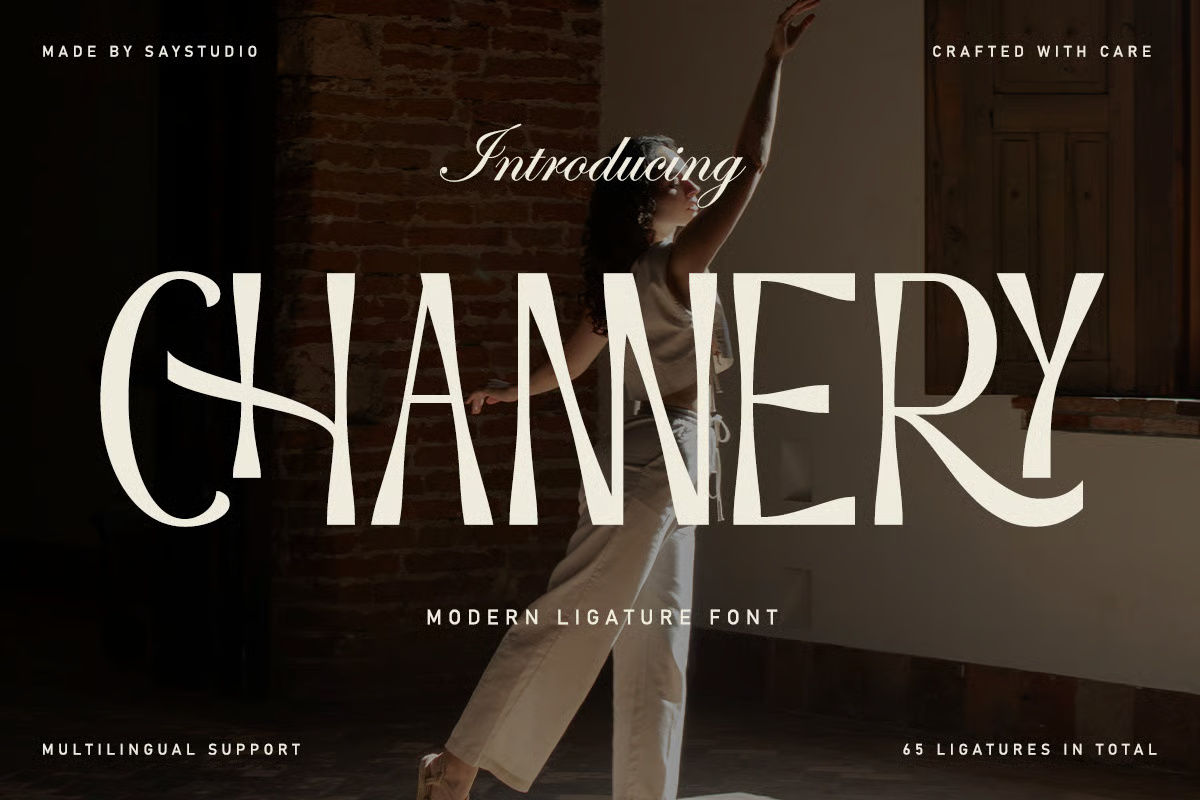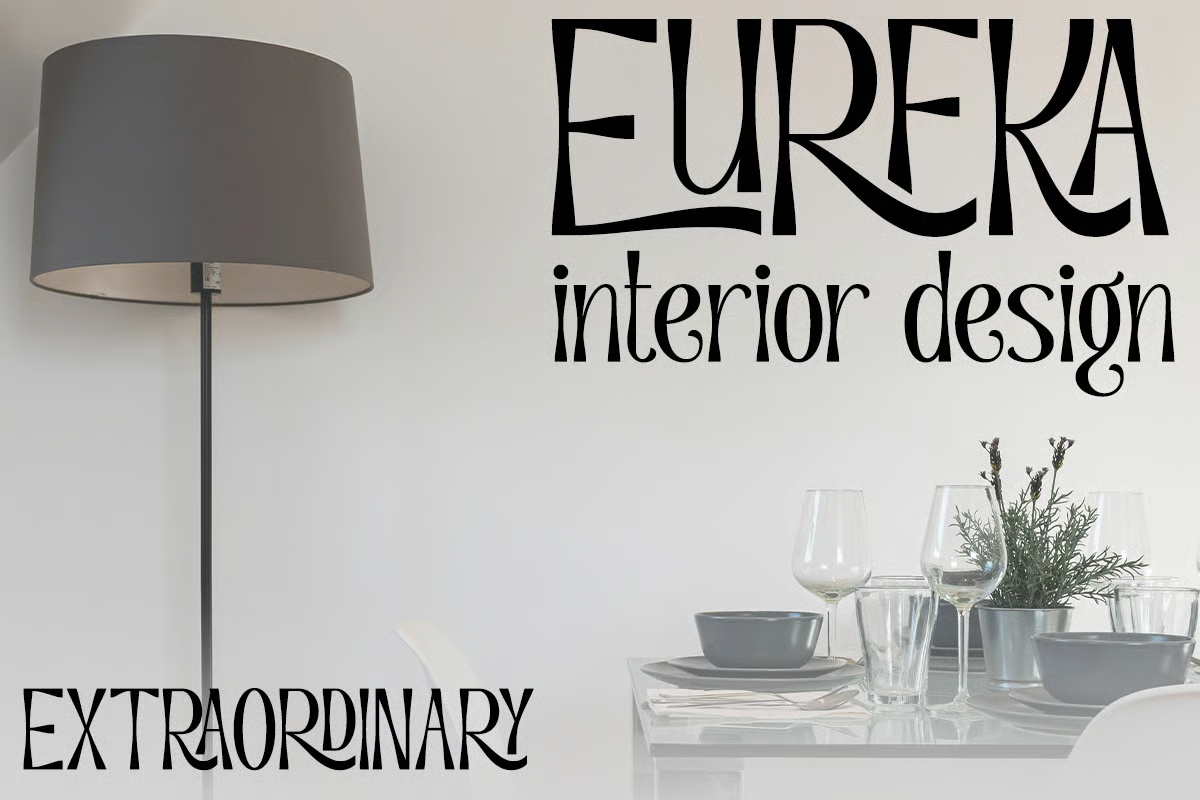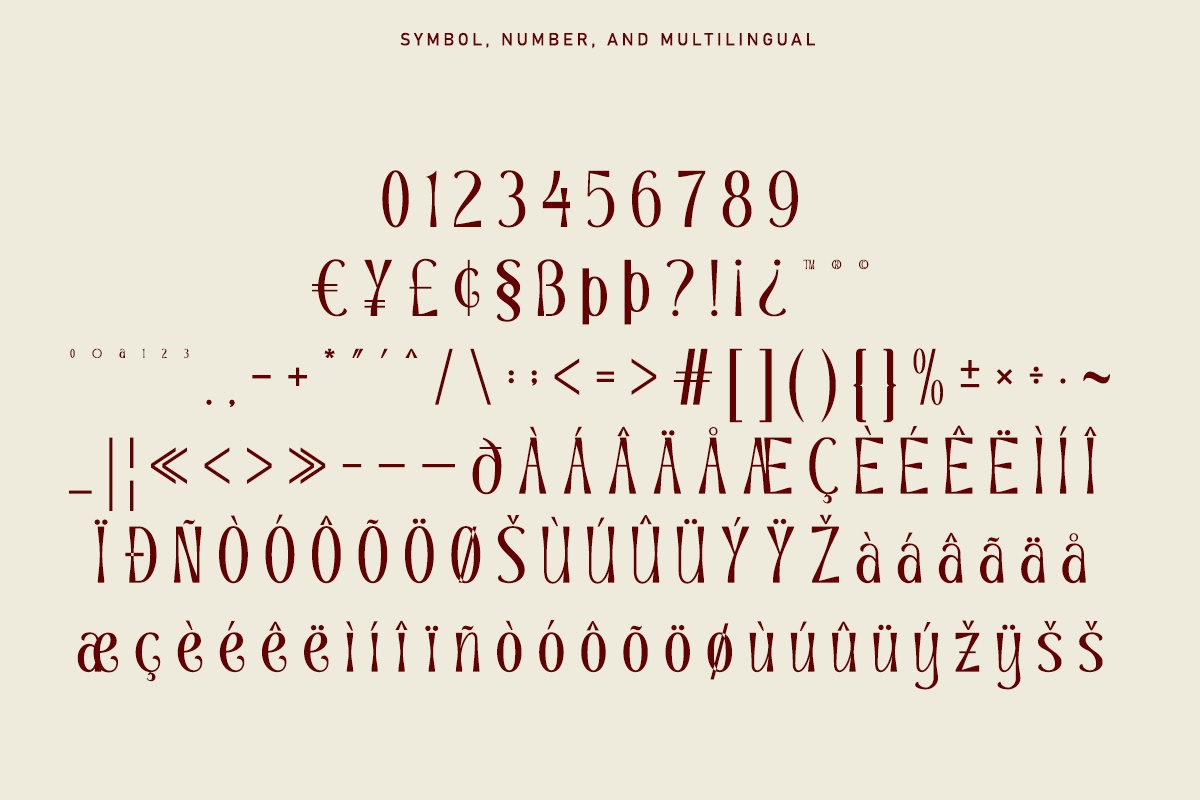
Channery is narrow and tall, with soft wedge serifs and letters that lean on each other. The double N in the cover word shares a stroke, and many pairs hook together through its 65 or so ligatures. Set as EUREKA interior design above a lamp and a dining table, it looks like the sign on a small Paris showroom.
Best uses for Channery
- Interior design and furniture brands
- Posters and exhibition titles
- Magazine headlines
- Restaurant and wine labels
- Book covers
Channery is condensed, so pair it with something wider. Jost keeps body copy clean. Montserrat in caps suits small labels. For a matching serif in longer text, try Lora.
Channery Serif Font